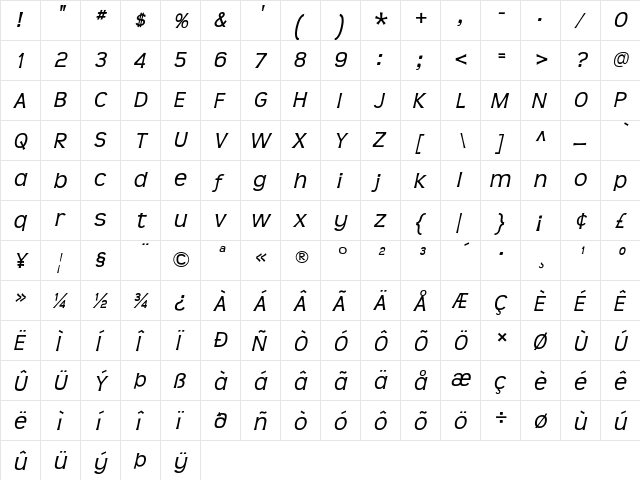
Teen Italic
| Foundry | Martin Archer / Ray Larabie |
| Designer | Ray Larabie & Martin Archer |
Design Context for Teen Typeface
Teen takes a measured approach to typography — its balanced proportions and neutral character make it a reliable workhorse for both digital and print work. Its italic angle brings a sense of urgency and motion to the letterforms.